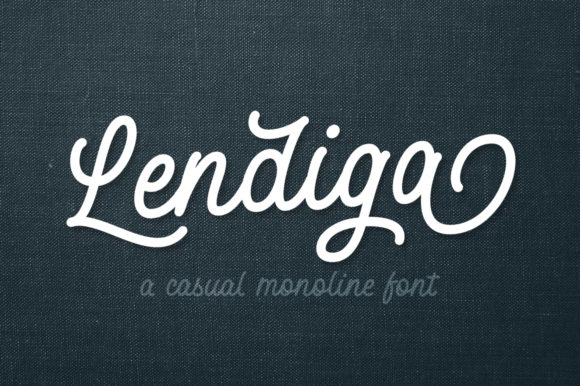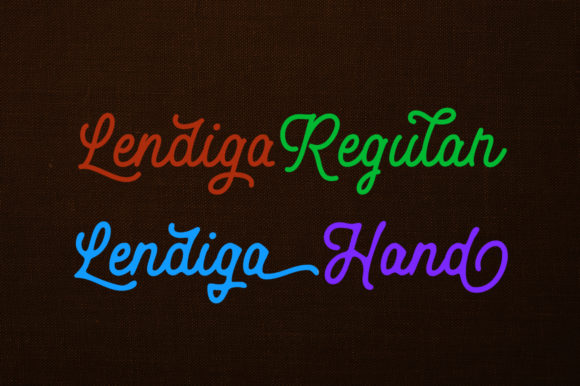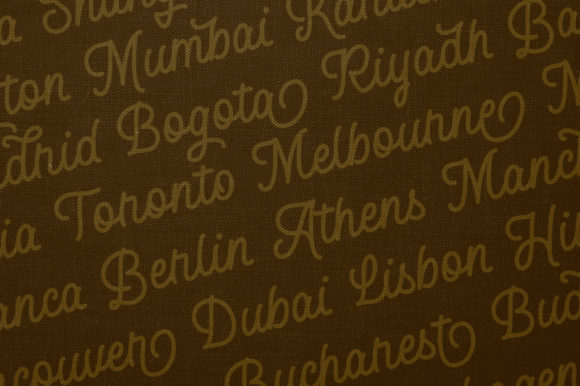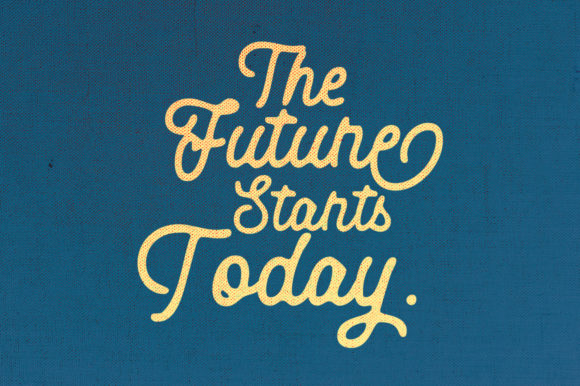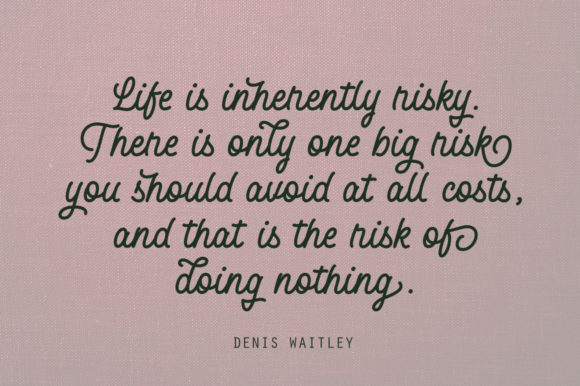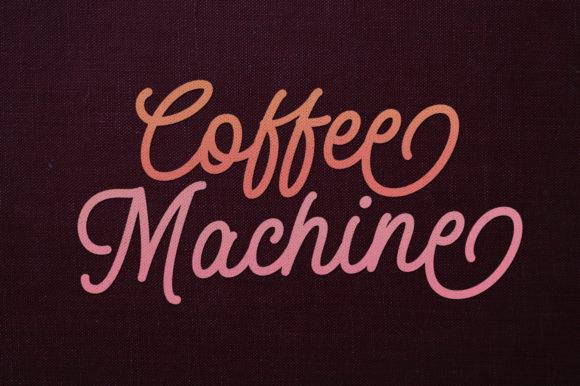
Lendiga Font
Lendiga is a charming and light handwritten font with a retro feel. Get inspired by its lovely charm, and turn any design idea into a stand out.